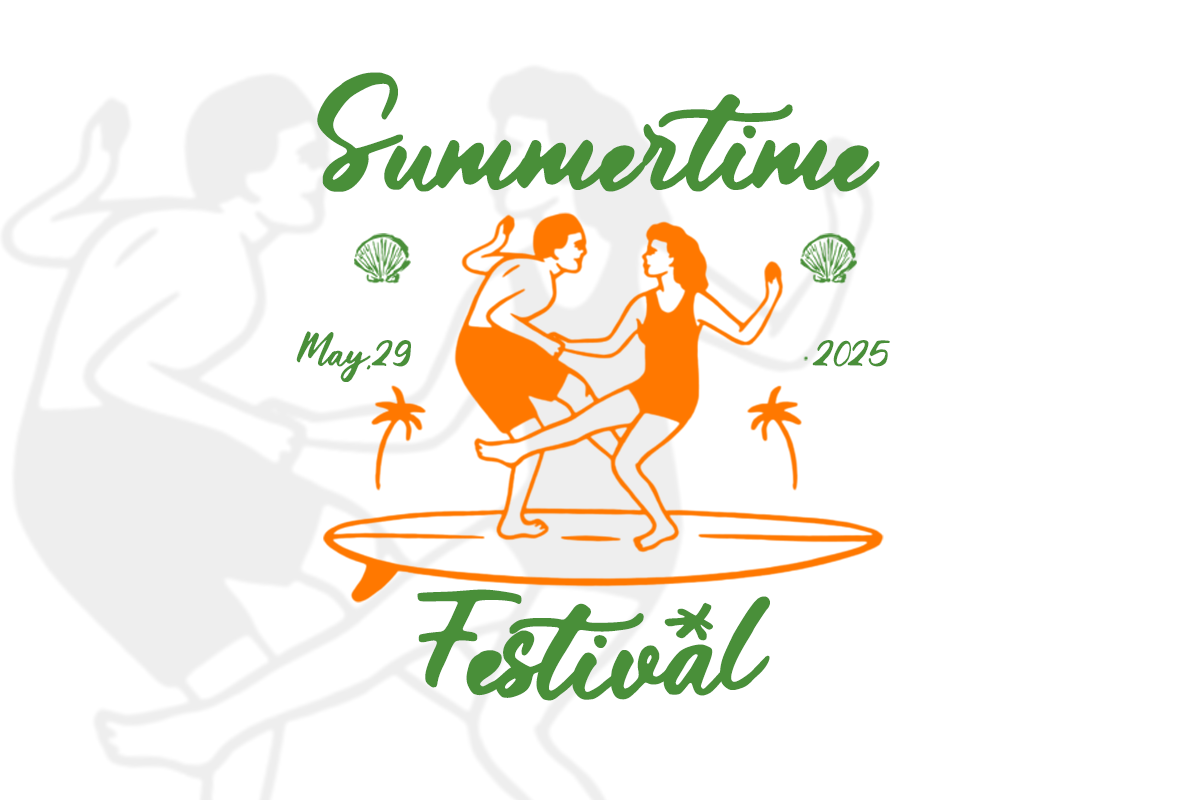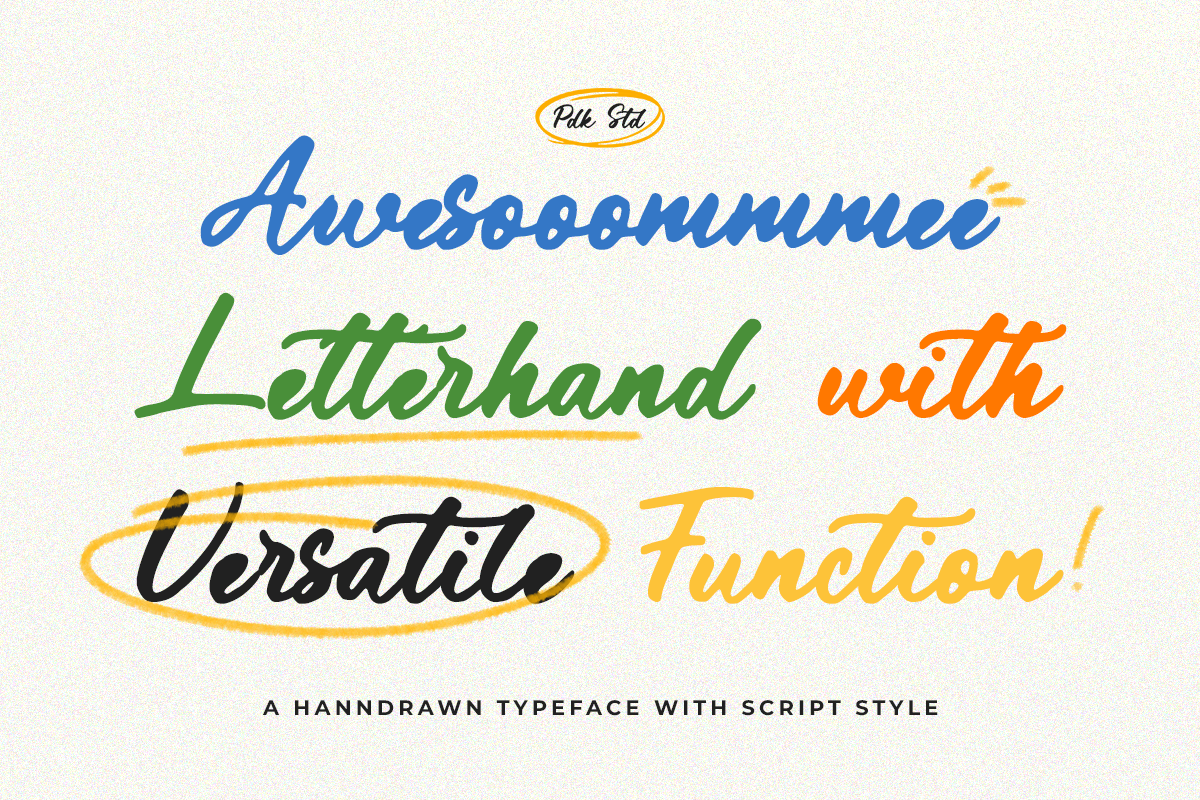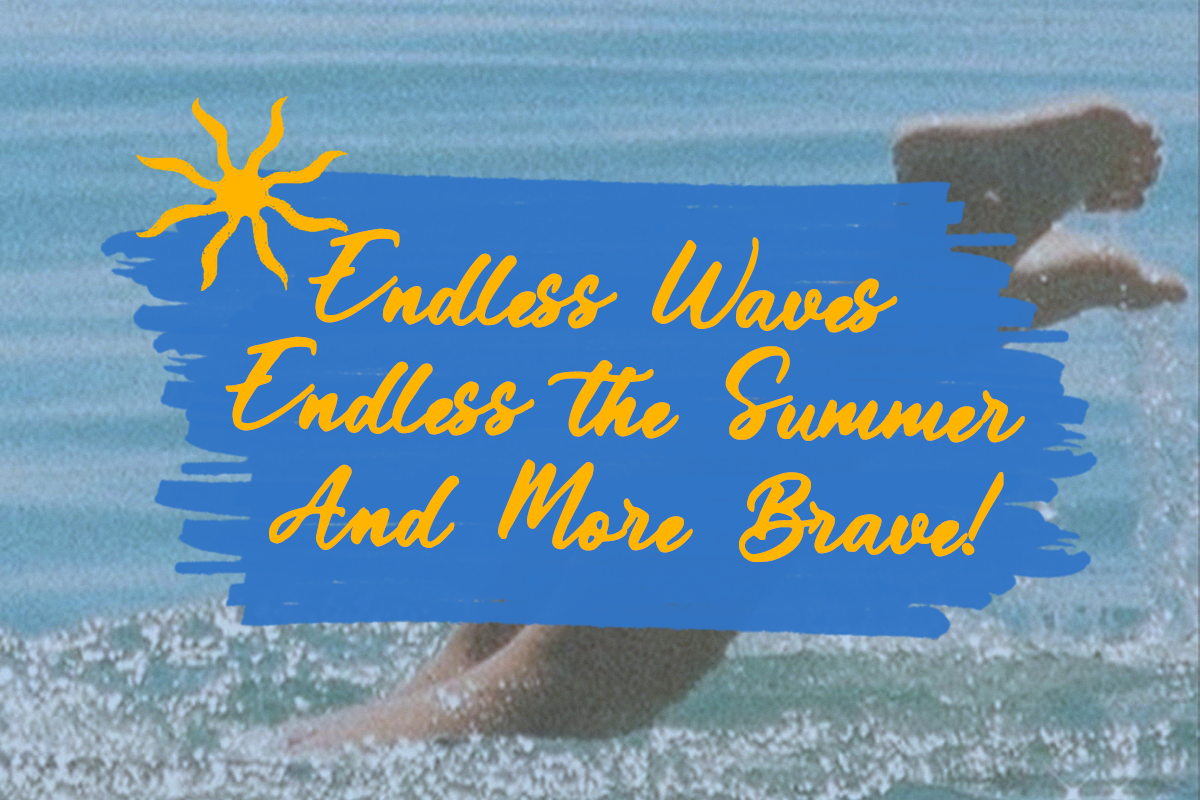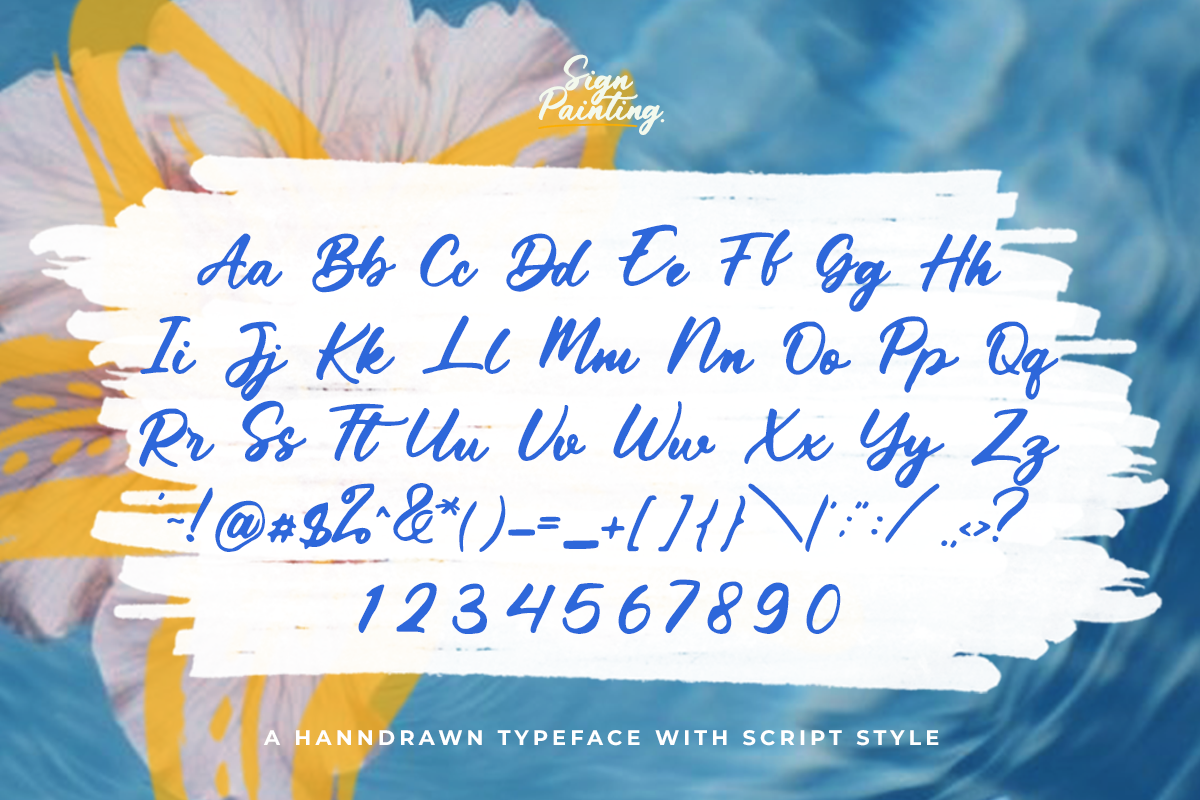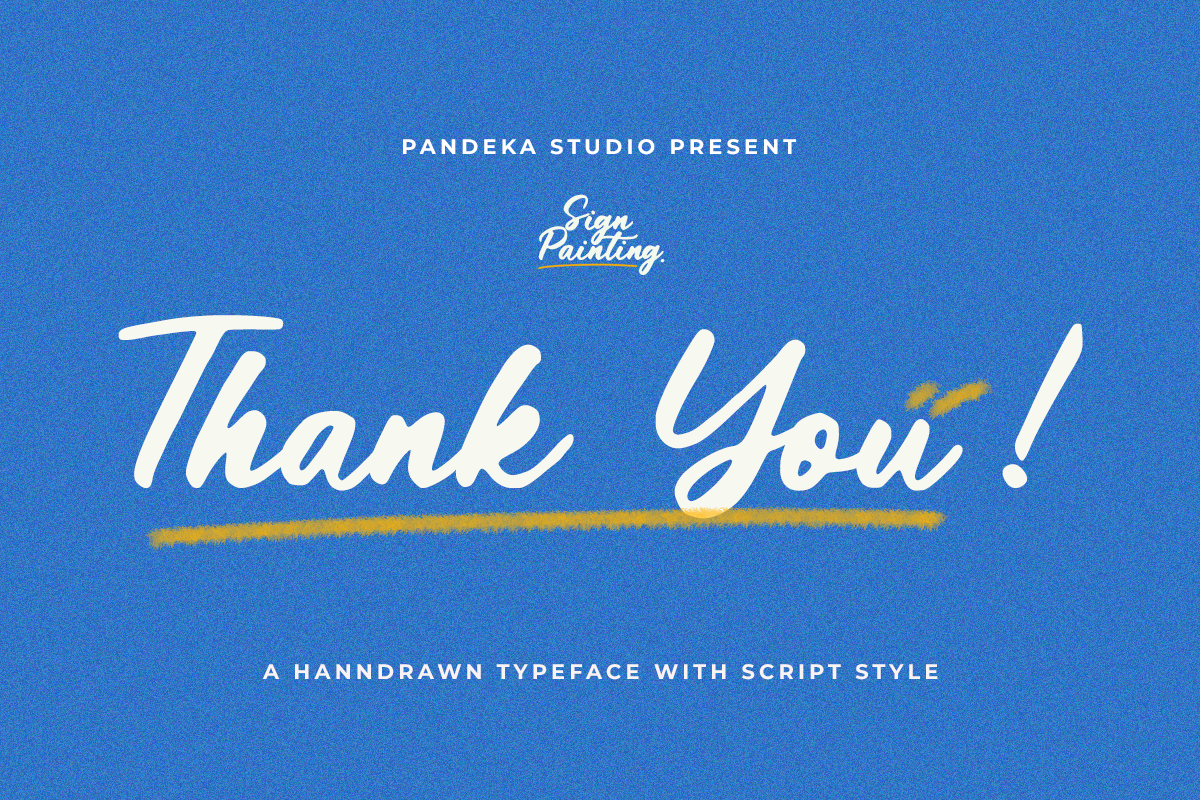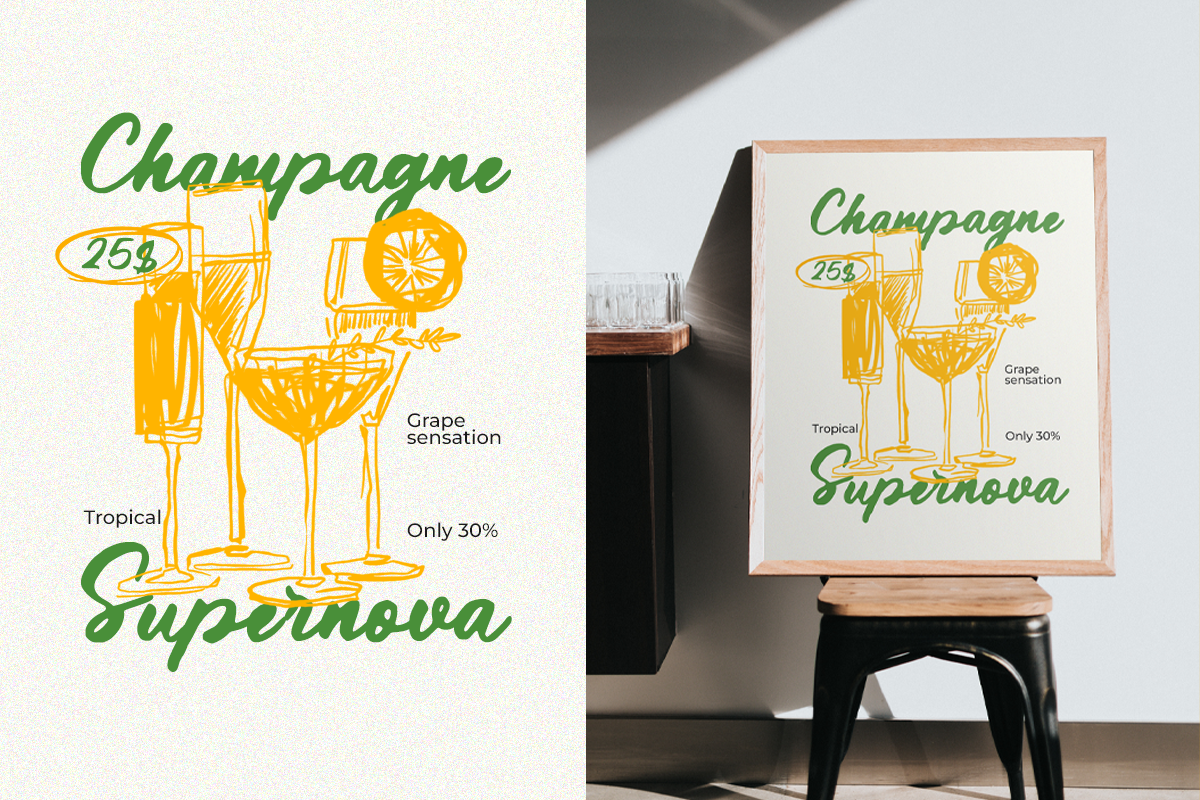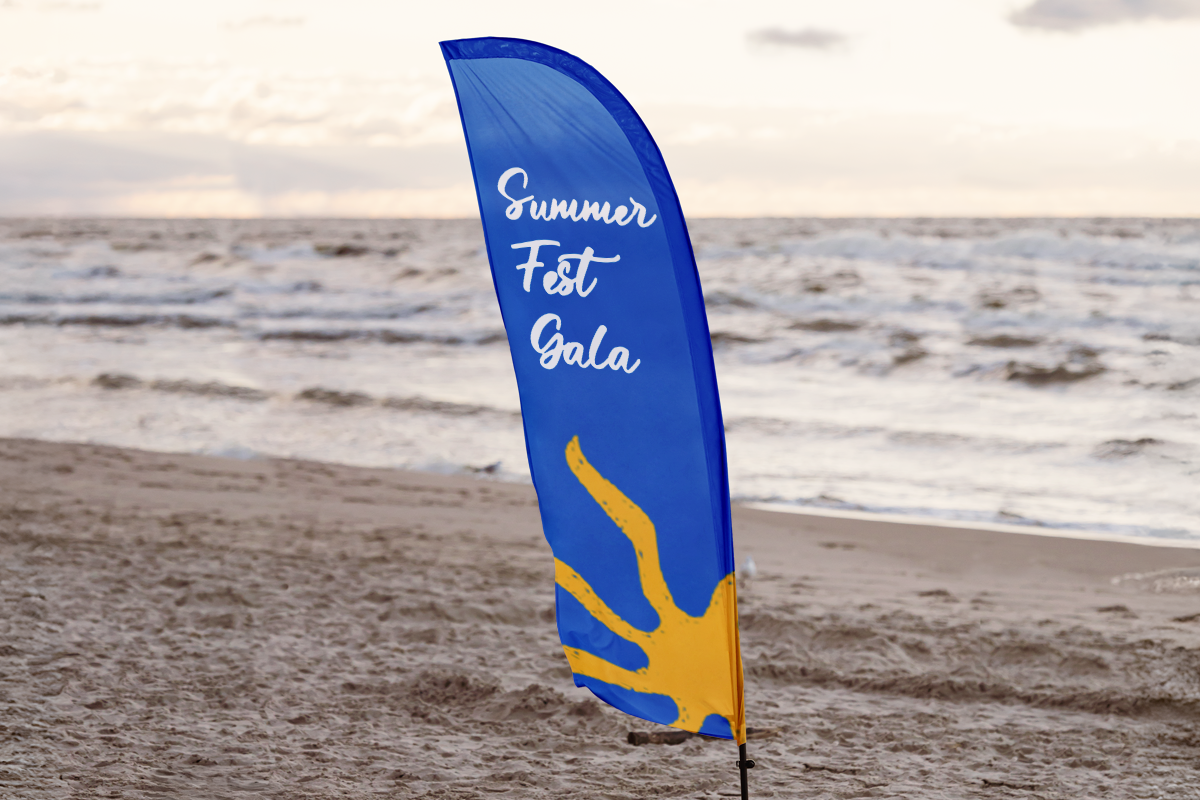
Sign Painting - Retro Script
Sign Painting is a casual, expressive handwritten typeface that captures the lively spirit of summer days and painted boardwalk signs. With its fluid strokes, script style, and sun-soaked energy, it’s the perfect font for beach festivals, surf shops, drink menus, and all things vibrant and playful.
This typeface evokes hand-brushed lettering you’d find on sun-faded banners and vintage seaside advertisements. It pairs an easygoing aesthetic with bold clarity—ideal for branding, signage, and promotional materials that need a burst of personality and warmth. Whether you're designing event flyers or laid-back apparel tags, Sign Painting brings a splash of coastal charm.
- 1 Style: Regular
- Full Character Set: Uppercase, lowercase, numbers, symbols, and punctuation